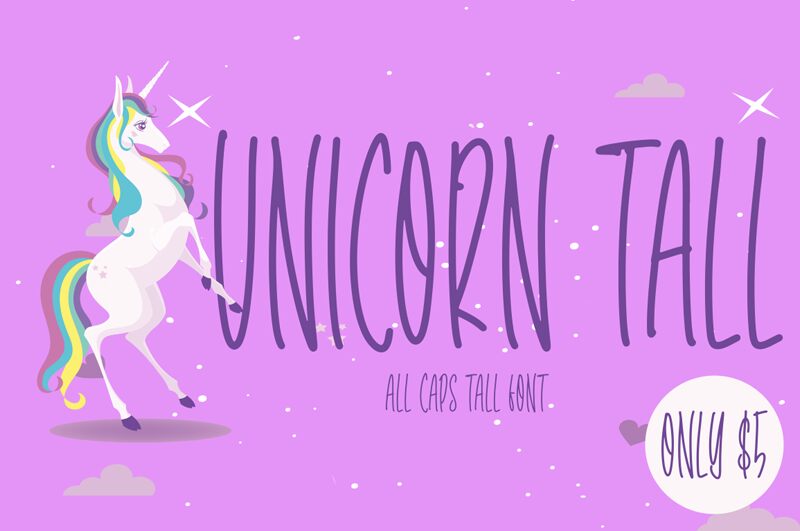
Unicorn Tall
Unicorn Tall, crafted by NJ Studio, is a captivating handwritten font that exudes a sense of whimsy and wonder. Its light, condensed strokes possess a graceful, almost ethereal quality, evoking the enchanting essence of its namesake. The font's unique character seamlessly blends the organic fluidity of freehand lettering with a refined, sophisticated touch, making it a delightful choice for projects seeking to infuse a touch of fairy-tale magic.
Unicorn Tall's versatility shines through, lending itself beautifully to a wide range of design applications. From stationery and branding to editorial layouts and packaging, this font's distinctive style can elevate any project with its captivating charm and timeless allure. Its adaptability makes it a natural fit for those seeking to create a sense of enchantment and wonder, whether in children's books, wedding invitations, or even modern marketing campaigns.